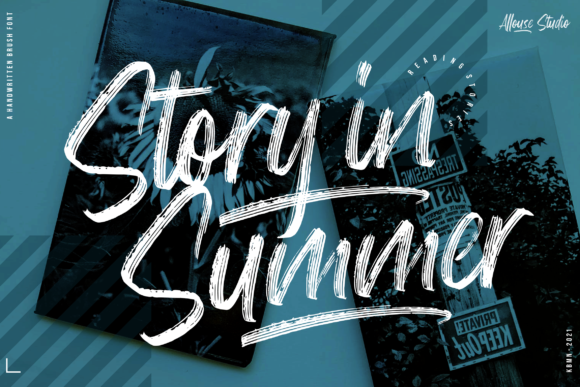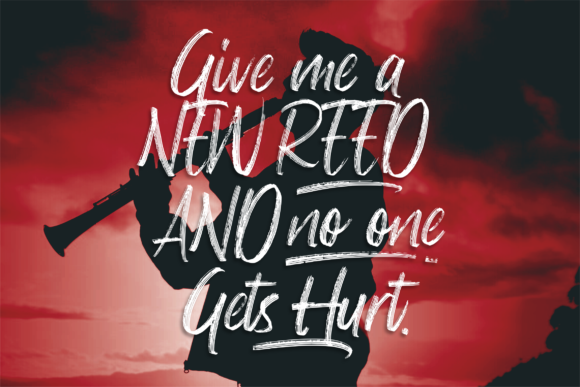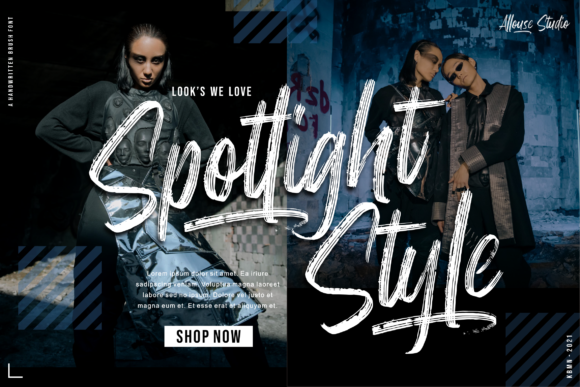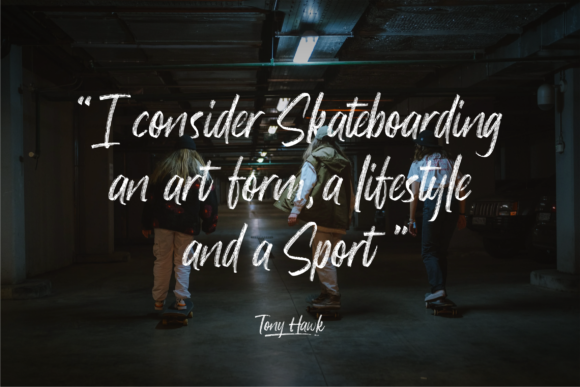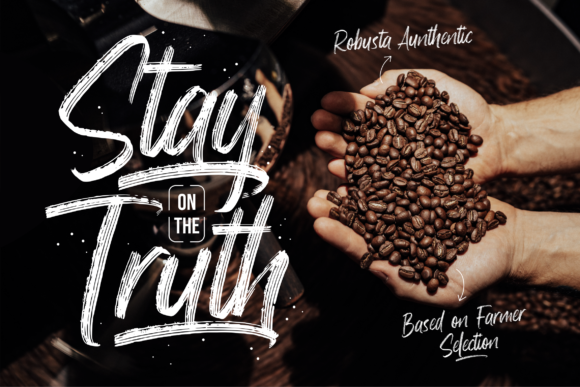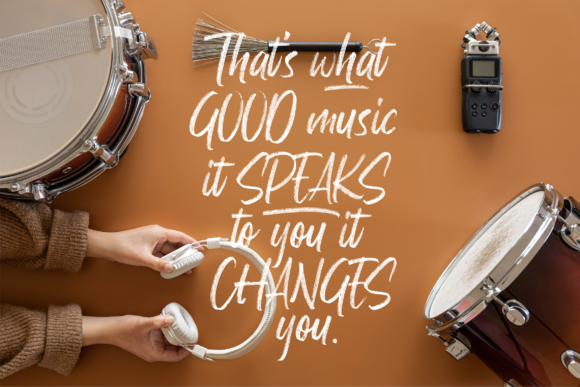
Introduction to Highfilm Font
Have you ever found yourself staring at a blank canvas, eager to bring a creative project to life? The blank page can be daunting, but sometimes all it takes is the right design resource to spark inspiration. For designers, the perfect font can make all the difference in elevating a project from ordinary to extraordinary.
That’s where the Highfilm Font comes in – a lovely script font featuring brushed characters that seem to dance along the baseline. With its unique aesthetic, Highfilm Font is sure to add a touch of sophistication to any design. Whether you’re working on a free download or a high-quality commercial project, this font is a valuable addition to any designer’s toolkit.
Key Features of Highfilm Font
- High-quality design resource suitable for creative projects, offering a unique and stylish look.
- Designed to be versatile and adaptable, making it a great addition to any design project.
- Perfect for graphic designers, artists, and creatives looking for a unique and high-quality font to elevate their work.
Honest Review: Highfilm Font
As a designer, I’m always on the lookout for high-quality design resources to elevate my creative projects. The Highfilm Font has been a recent addition to my toolkit, and I’m excited to share my honest review.
What works well: ✨ The Highfilm Font offers a sleek, modern aesthetic that’s perfect for creating eye-catching headings and titles. The font’s versatility makes it suitable for a wide range of creative projects, from branding and advertising to digital products and publications.
- High-quality design: The font’s clean lines and precise typography make it a great choice for designers who value attention to detail.
Limitations: ⚠️ While the Highfilm Font is a great addition to any design library, it’s worth noting that it may not be suitable for all types of projects. For example, it may not be the best choice for projects that require a more traditional or serif font.
Overall, I’m impressed with the Highfilm Font and would recommend it to designers who are looking for a high-quality, modern font for their creative projects.
Tips for Getting the Most Out of Highfilm Font
Use Highfilm Font with a transparent background to create a clean and minimalist design. Experiment with different font sizes and styles to add visual interest to your design. Use Highfilm Font in conjunction with other design resources to create a cohesive and professional-looking design.
Highfilm Font is commonly used in graphic design, digital marketing, and creative writing projects. It is a versatile font that can be used in a variety of creative projects, from logos and graphics to presentations and documents.
Alternatives to Highfilm Font
Helvetica Font
Helvetica is a clean and versatile sans-serif font, ideal for design projects that require a high-quality and professional look. It’s a great choice for logos, brochures, and other marketing materials. Helvetica is a classic font that has been a design staple for decades, making it a timeless choice for creative projects.
Compared to Highfilm Font, Helvetica has a more traditional and elegant feel, while Highfilm Font has a more modern and edgy look. Helvetica is also more suitable for text-heavy designs, whereas Highfilm Font is better suited for bold headlines and titles.